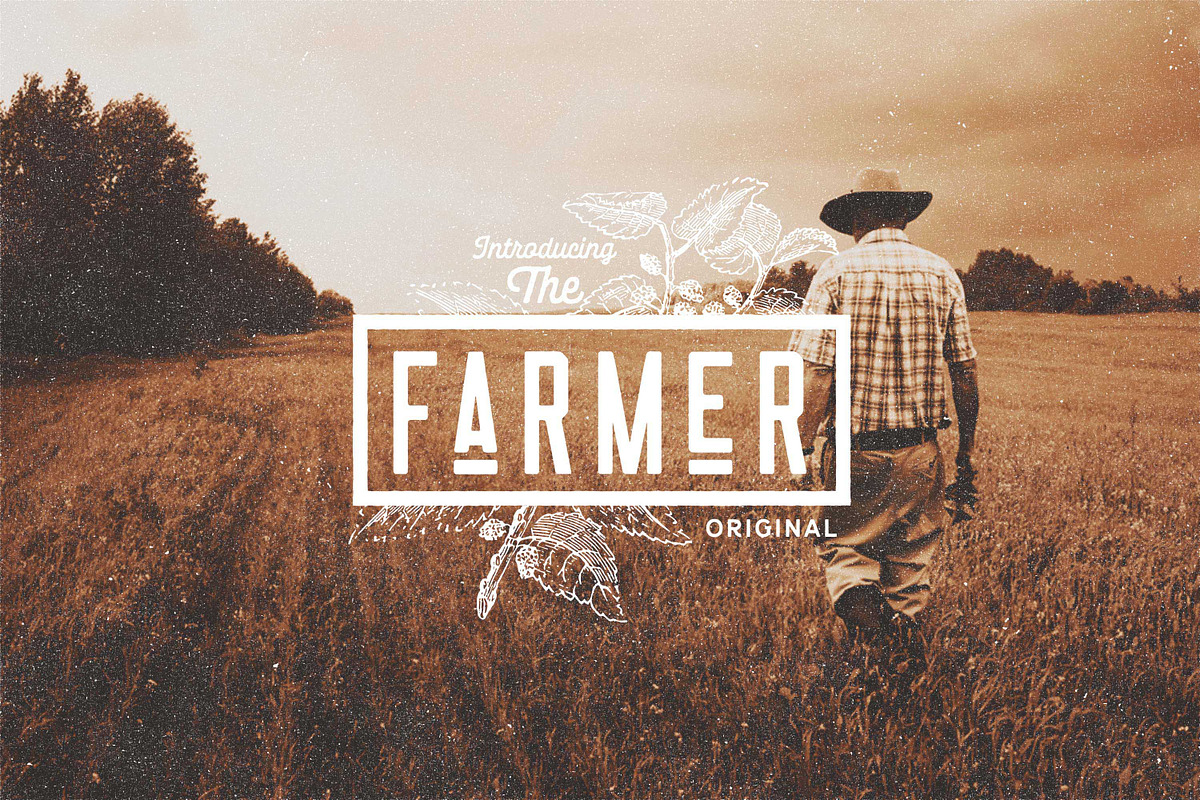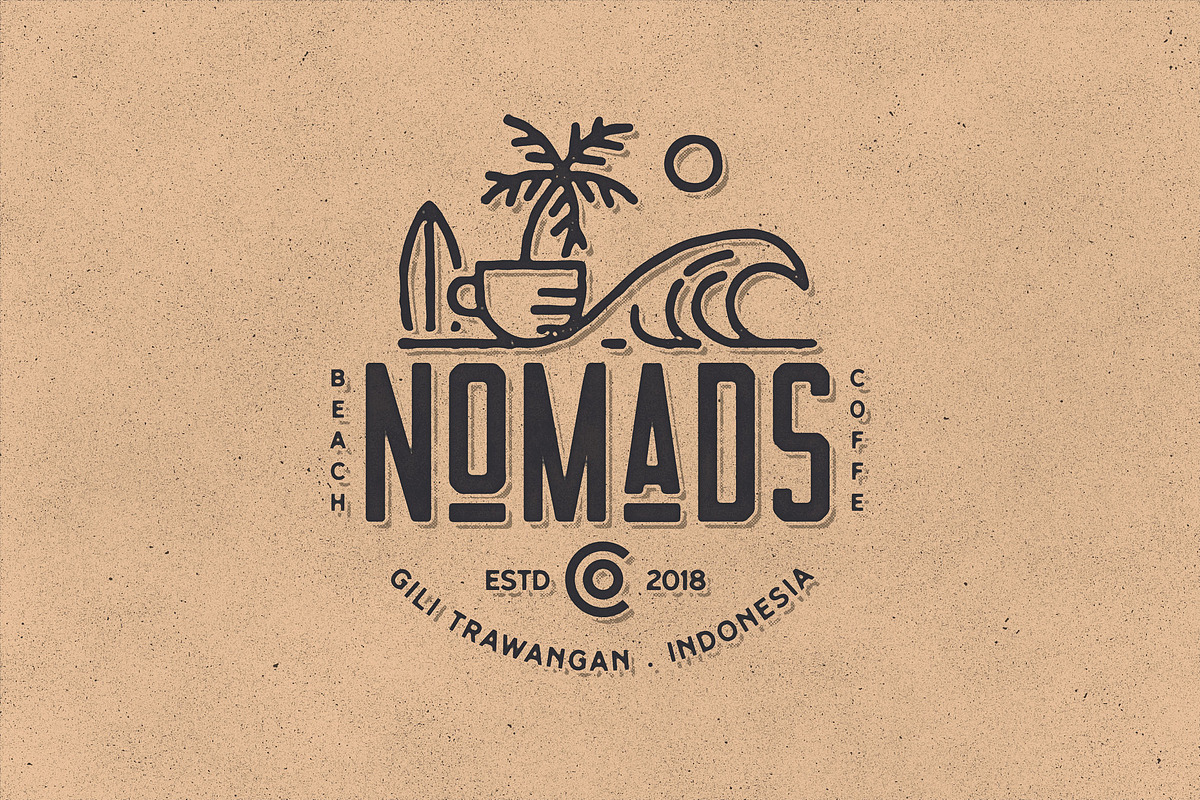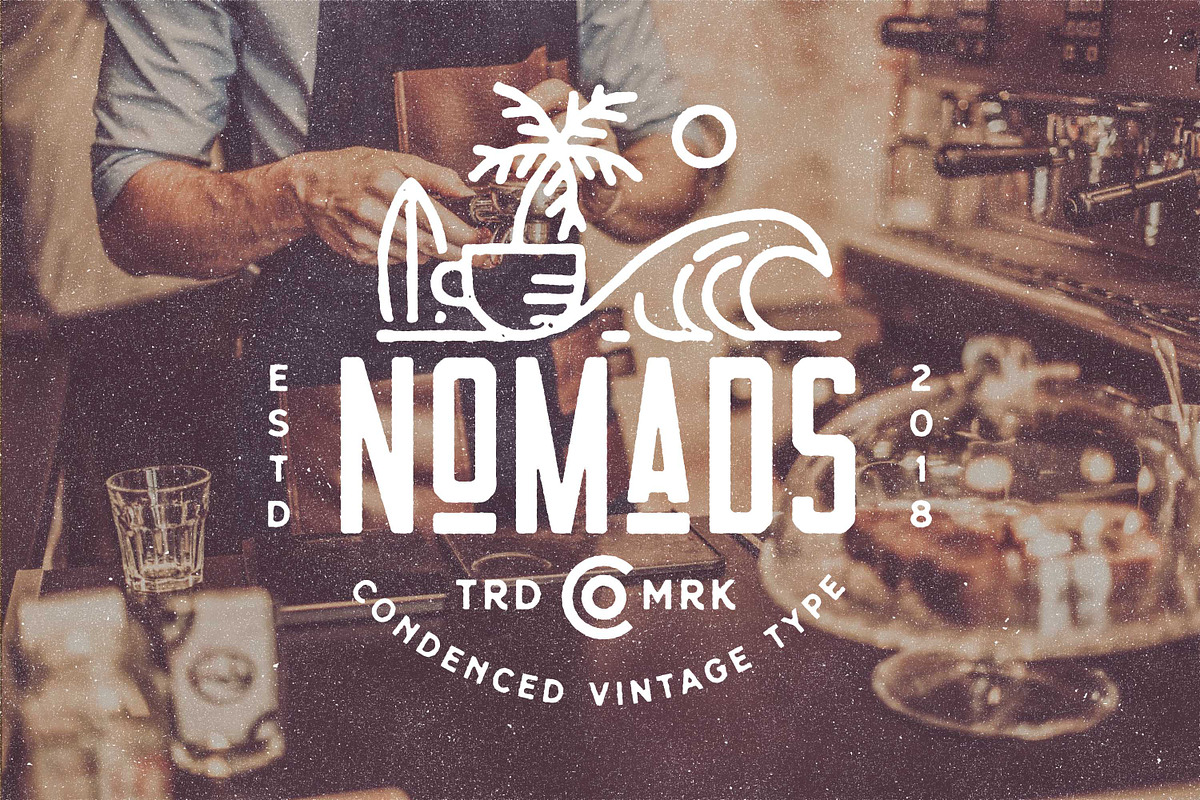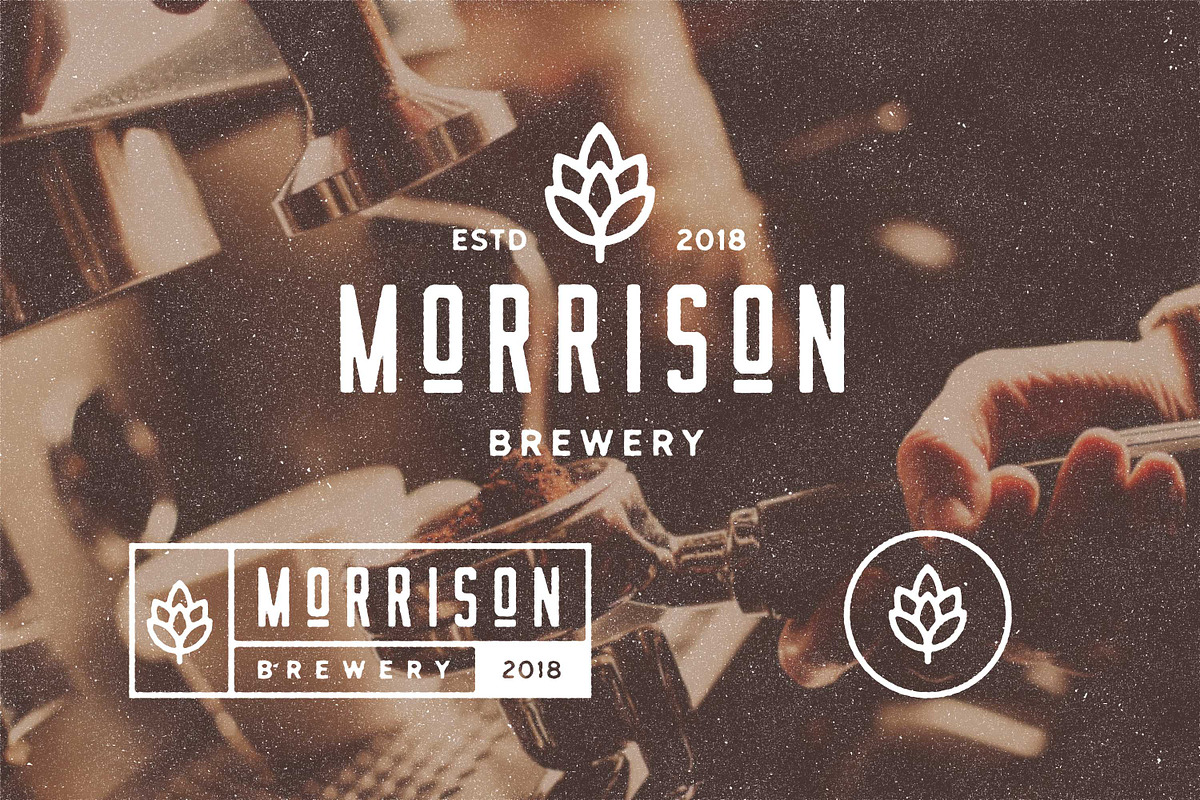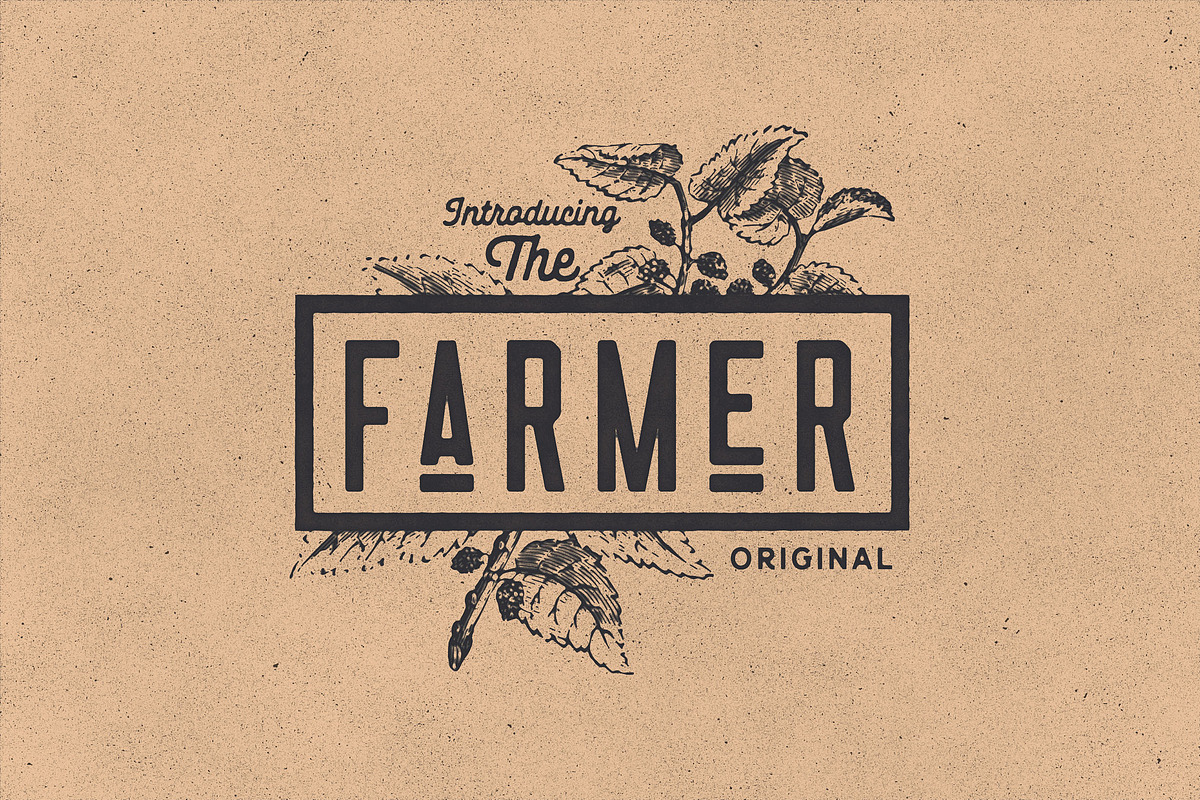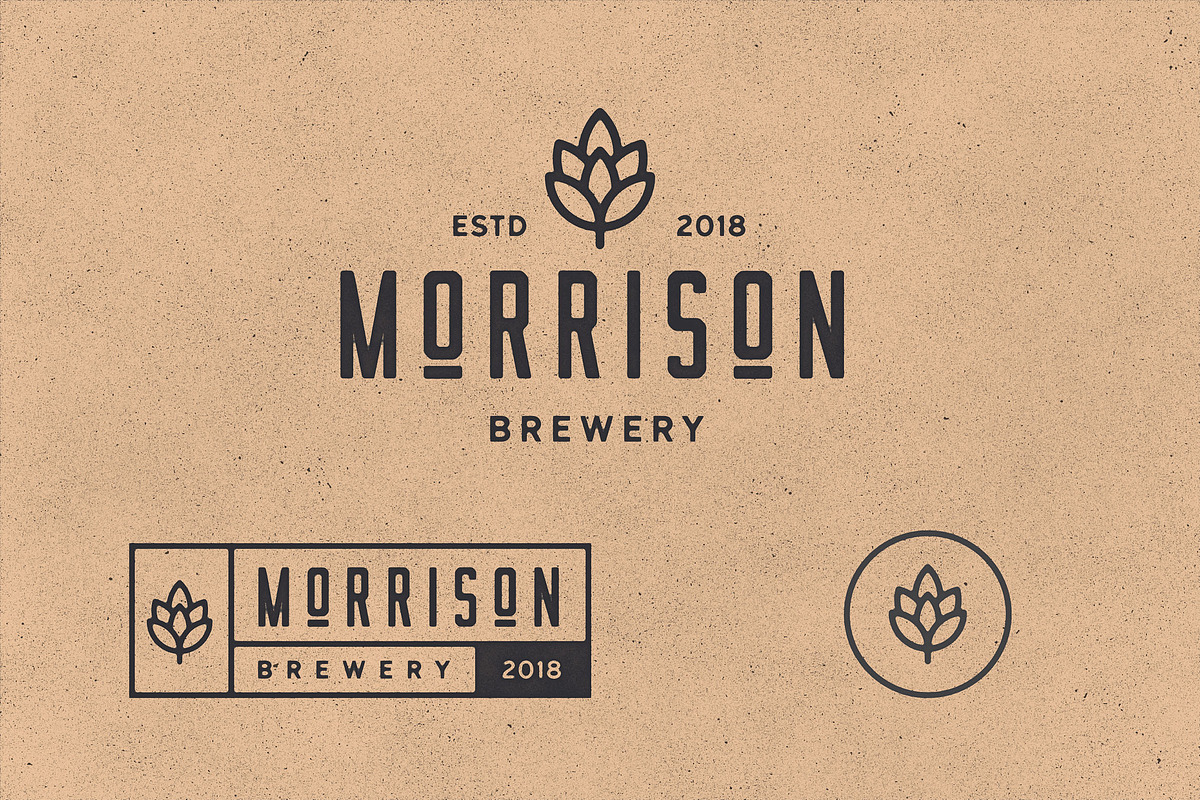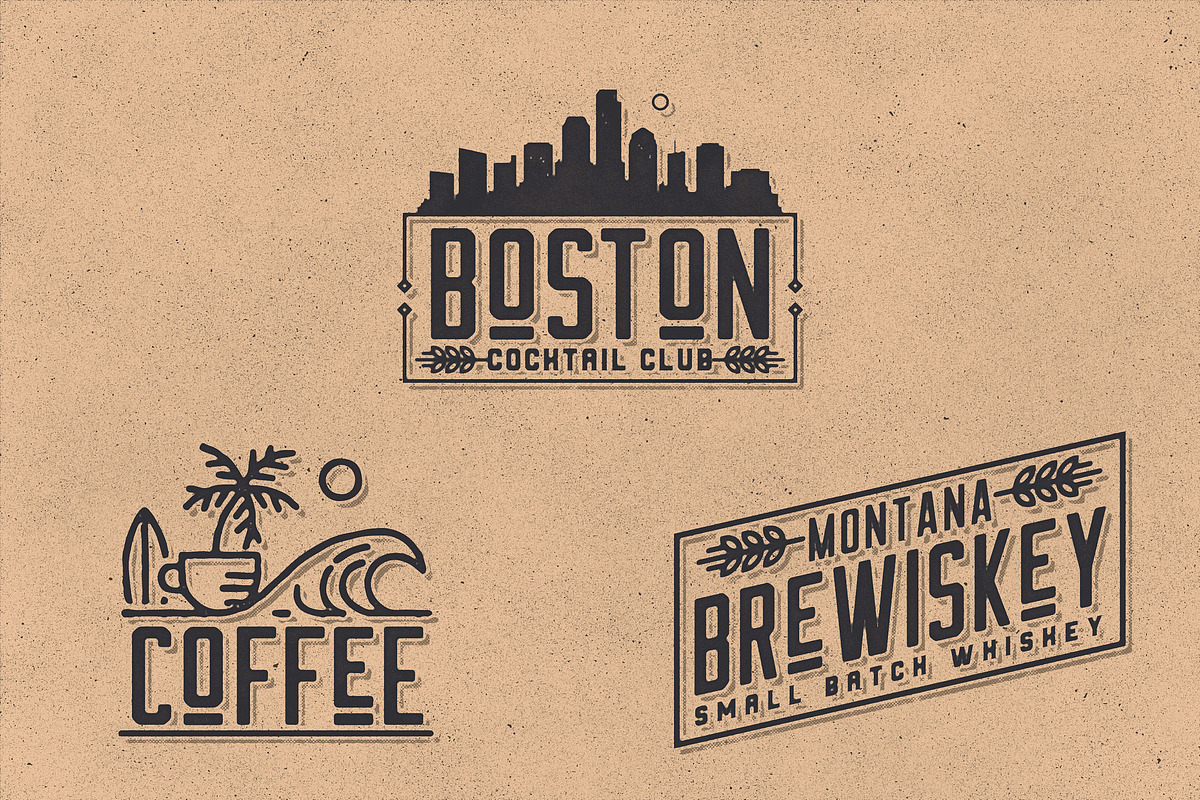
Nomads -The Farmer Original Typeface
The Farmer Originalis an ultra condensed Type Family that includes 3 styles: Regular, Rounded & Vintage versions. This family is an All-Caps family with each version contains alternates. With 3 styles and iconic alternates, The Farmer can give a diverse set of aesthetics. With light giving a much more simple modern vintage look, fashionable feel and the bold giving a more rugged vibe for Simple Coffee shop logo, Brewing Company logo, basically anything that look strong and mature design look.
Numeral, Punctuation and Symbol
3 styles : Regular, Rounded, Vintage